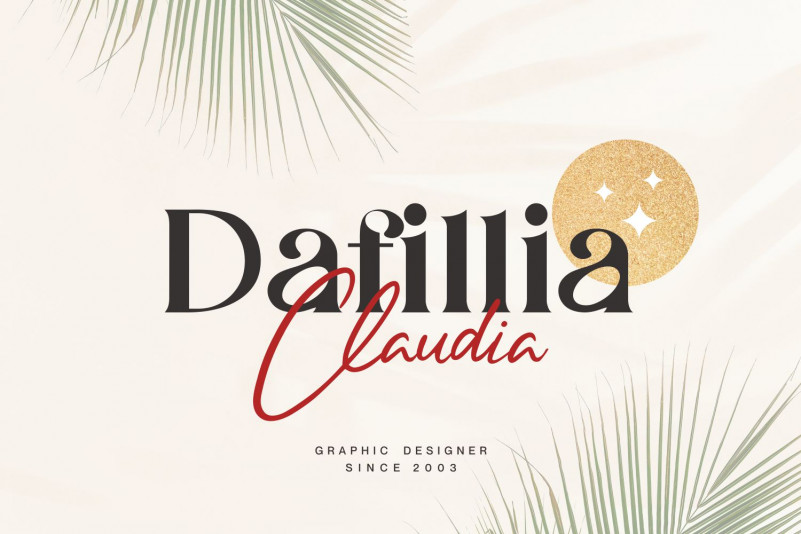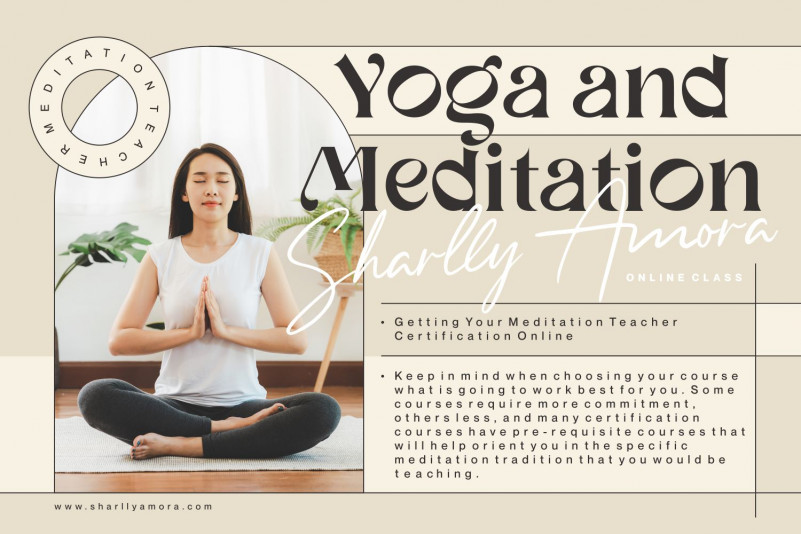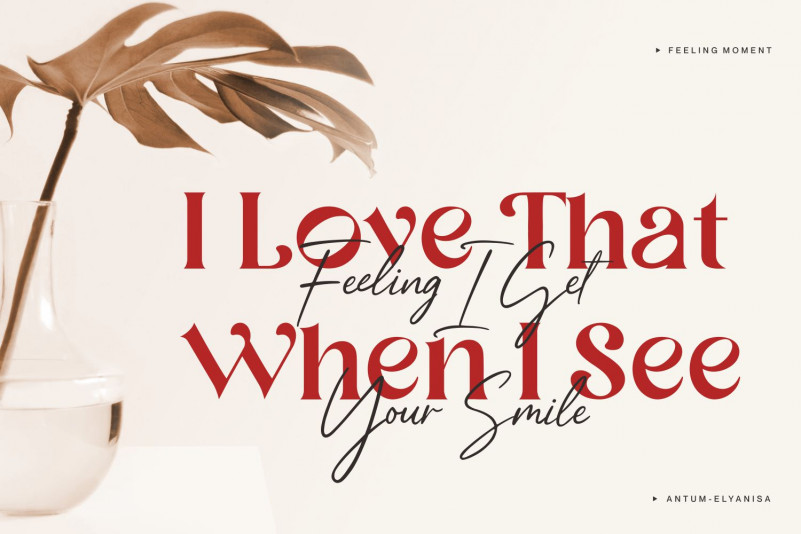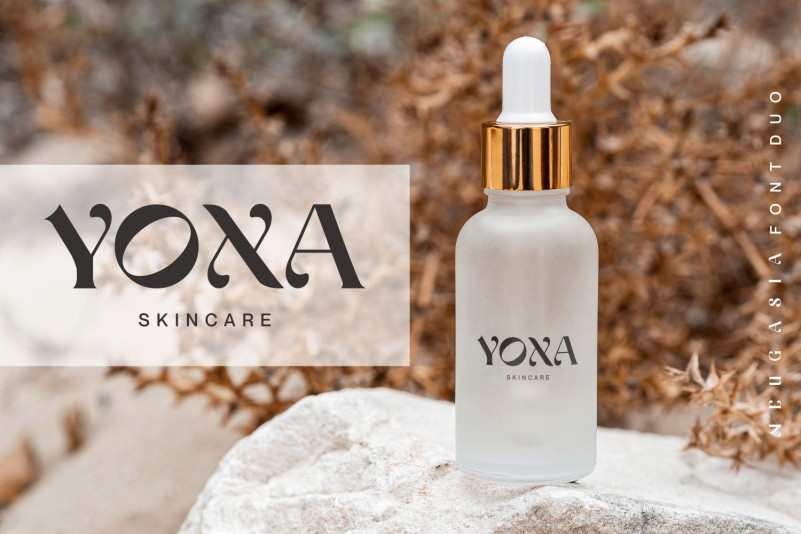
Neug Asia Font Duo
This is a beautiful and versatile duo font (serif and script). Masterfully designed to become a true favorite, this font has the potential to bring each of your creative ideas to the highest level!